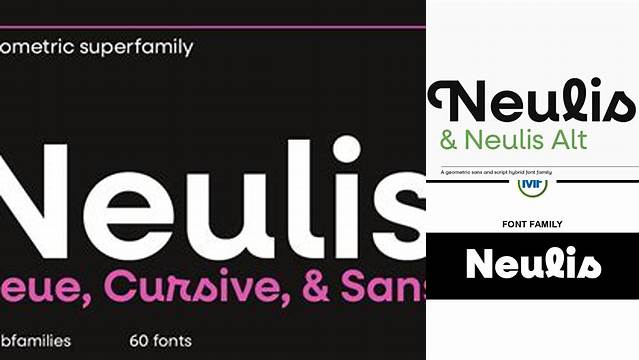
Hey guys! Looking for that perfect font to make your designs pop? You've probably stumbled upon Neulis Black, a sleek and modern typeface that's super popular right now. But finding a free download can sometimes feel like searching for a needle in a haystack. Don't worry, though! This article is your ultimate guide to finding Neulis Black font and using it effectively. We'll explore everything from its characteristics to where you can (legally!) snag it for your projects. So, let's dive in!
1. What Makes Neulis Black Font So Special?
Before we jump into the download details, let's talk about what makes Neulis Black so awesome. This font is known for its clean lines, bold presence, and modern aesthetic. It's perfect for headlines, logos, branding, and anything else where you want to make a statement. The strong, sturdy characters exude confidence and professionalism, while the subtle curves add a touch of elegance. Whether you're designing a website, creating a marketing campaign, or just sprucing up your social media graphics, Neulis Black can instantly elevate your visual communication. Its versatility is truly one of its greatest strengths, allowing it to seamlessly blend into diverse design styles and industries. So, if you're looking for a font that's both eye-catching and functional, Neulis Black might just be your perfect match.
2. Neulis Black Font: Key Characteristics
Let's break down the key characteristics of Neulis Black font. Understanding these elements will help you appreciate its design and use it effectively. First off, the weight is significant – it's black, after all! This means the strokes are thick and prominent, making it ideal for headlines and titles. The letterforms are generally geometric, with clean, sharp lines, but there's also a subtle softness in the curves that prevents it from feeling too harsh. The contrast between thick and thin strokes is moderate, contributing to its overall legibility. Neulis Black also boasts excellent readability, even at smaller sizes, thanks to its well-defined characters and ample spacing. The attention to detail in its design ensures that each glyph is meticulously crafted, resulting in a cohesive and visually appealing typeface. This balance of boldness and elegance is what truly sets Neulis Black apart, making it a top choice for designers seeking a font that commands attention while maintaining a sense of sophistication.
3. Ideal Uses for Neulis Black in Design
Okay, so where can you actually use Neulis Black in your design projects? The possibilities are pretty much endless! Its bold and modern vibe makes it perfect for headlines and titles, especially in website design and print materials. Think eye-catching banners, impactful posters, and strong branding elements. Neulis Black also shines in logo design, where its confident presence can help establish a brand's identity. Because of its excellent readability, it works well for shorter blocks of text, like captions and taglines. You could also use it for packaging design, social media graphics, and even presentations. Its versatility means it can adapt to various design styles, from minimalist to more complex compositions. If you want your message to stand out and leave a lasting impression, Neulis Black is a fantastic choice. Consider its strengths – its bold weight, clean lines, and modern aesthetic – and you'll find countless ways to incorporate it into your designs. Remember, a great font can be the cornerstone of a successful visual identity!
9. Pairing Neulis Black with Other Fonts
30. Neulis Black Font: A Summary and Final Thoughts
So, guys, we've covered a lot about Neulis Black font! From its key characteristics and ideal uses to where you might find a free download and how to use it effectively in your design projects, hopefully you've gained a solid understanding of this awesome typeface. Remember, Neulis Black is a bold, modern font that's perfect for headlines, logos, and branding. Its clean lines and strong presence make it a versatile choice for a variety of design styles. When using it, pay attention to font licensing, pair it with a legible body text font, and avoid overusing it. And while finding a free version can be tempting, always prioritize legal and ethical font usage. Ultimately, the best font is the one that helps you communicate your message effectively and enhances your overall design. So, go ahead, experiment with Neulis Black (or any other font that catches your eye!), and create something amazing! Happy designing!